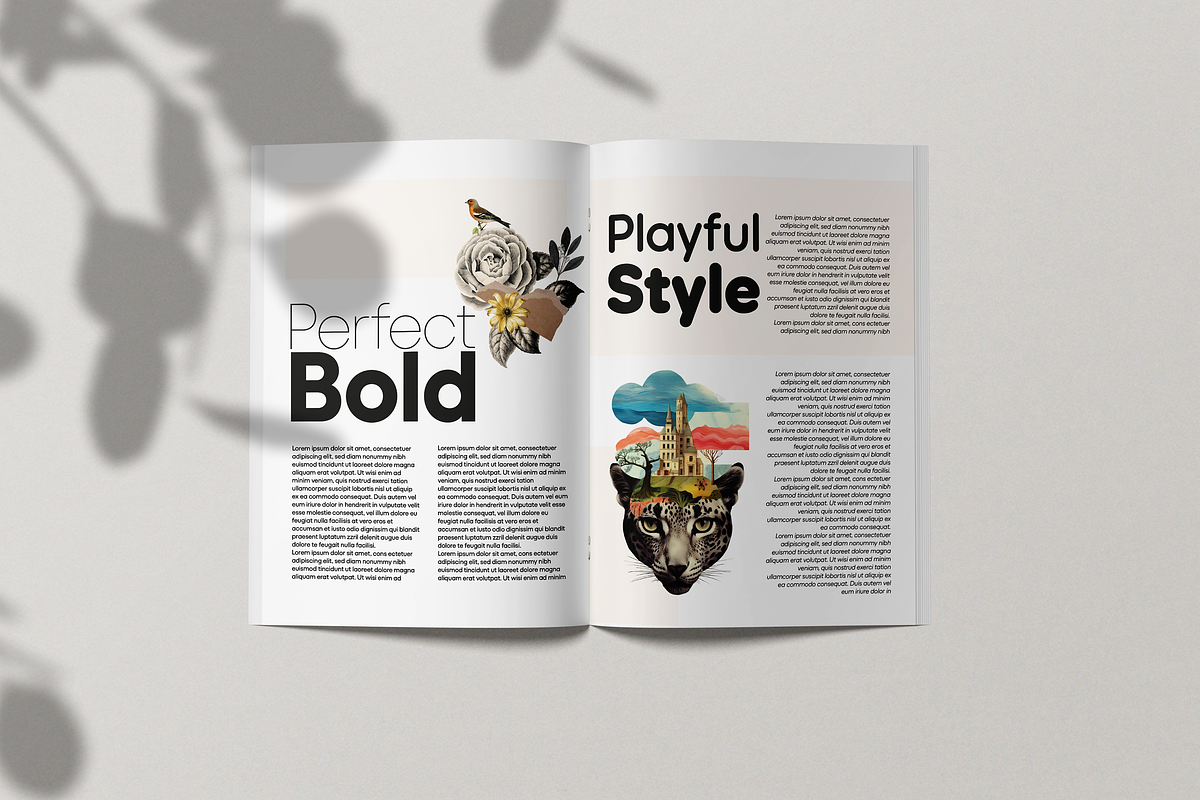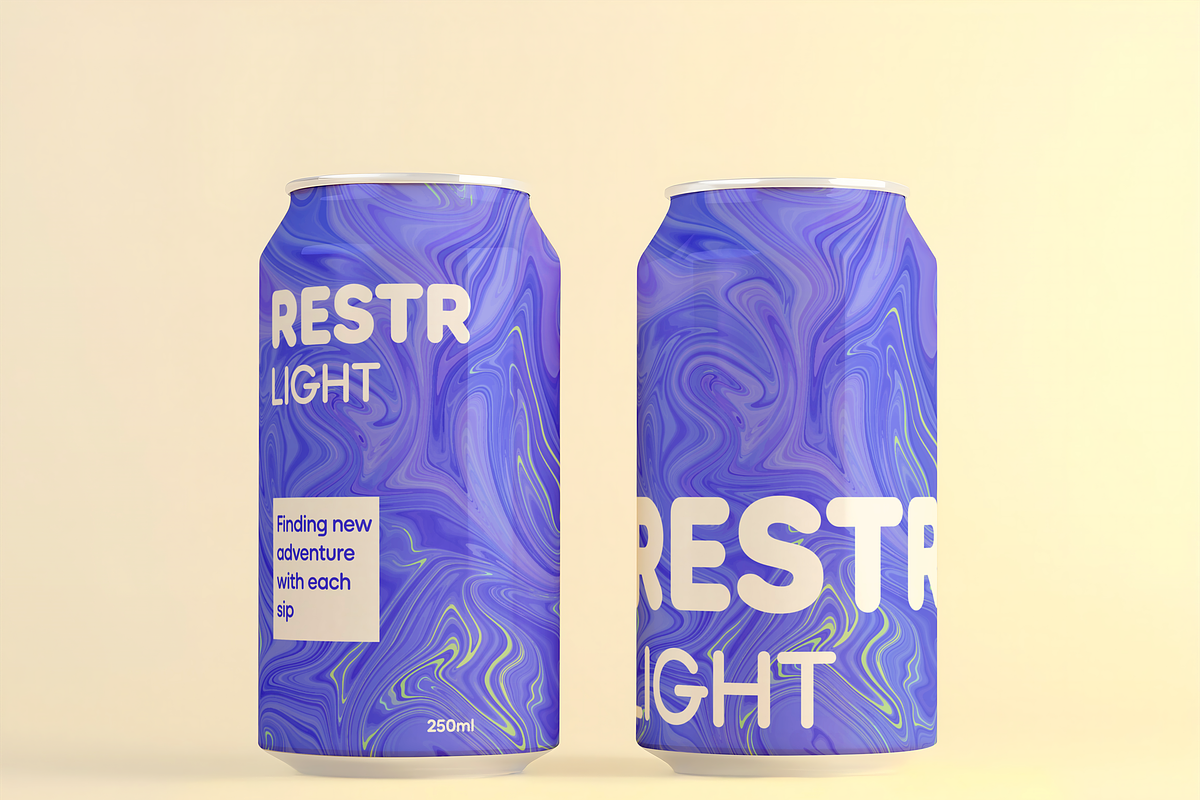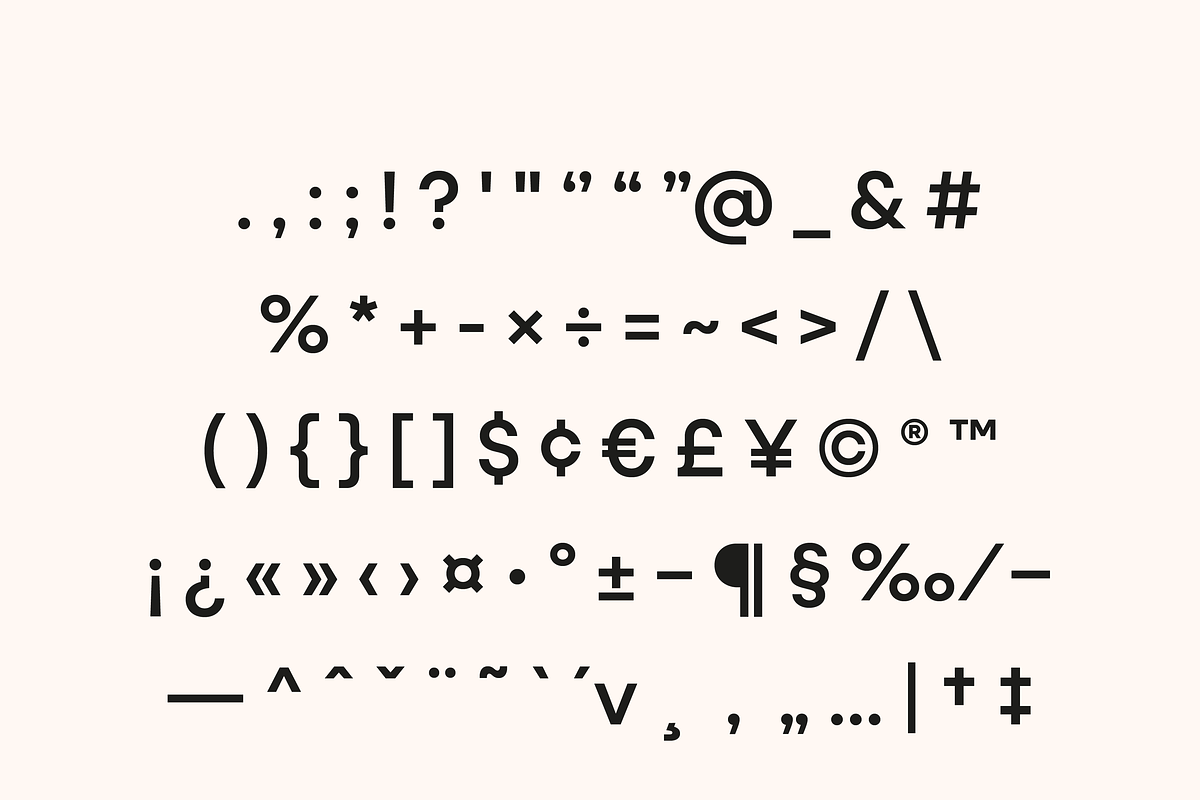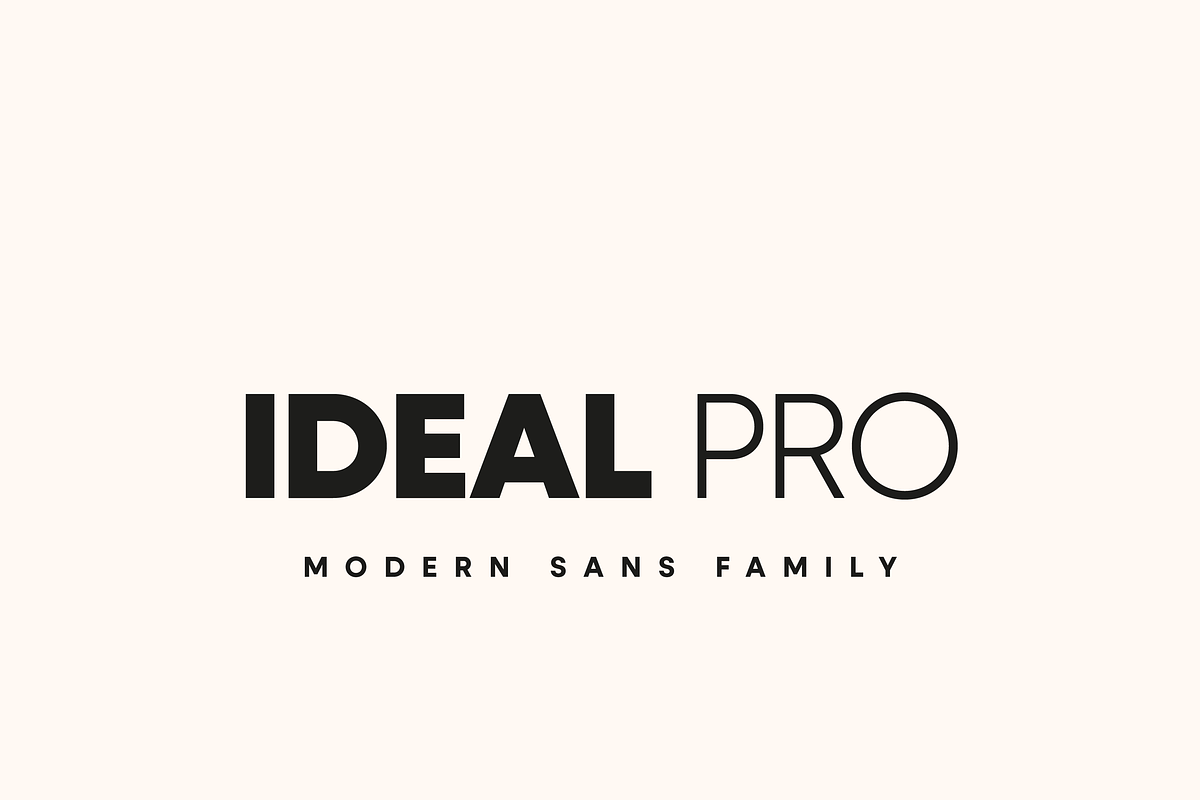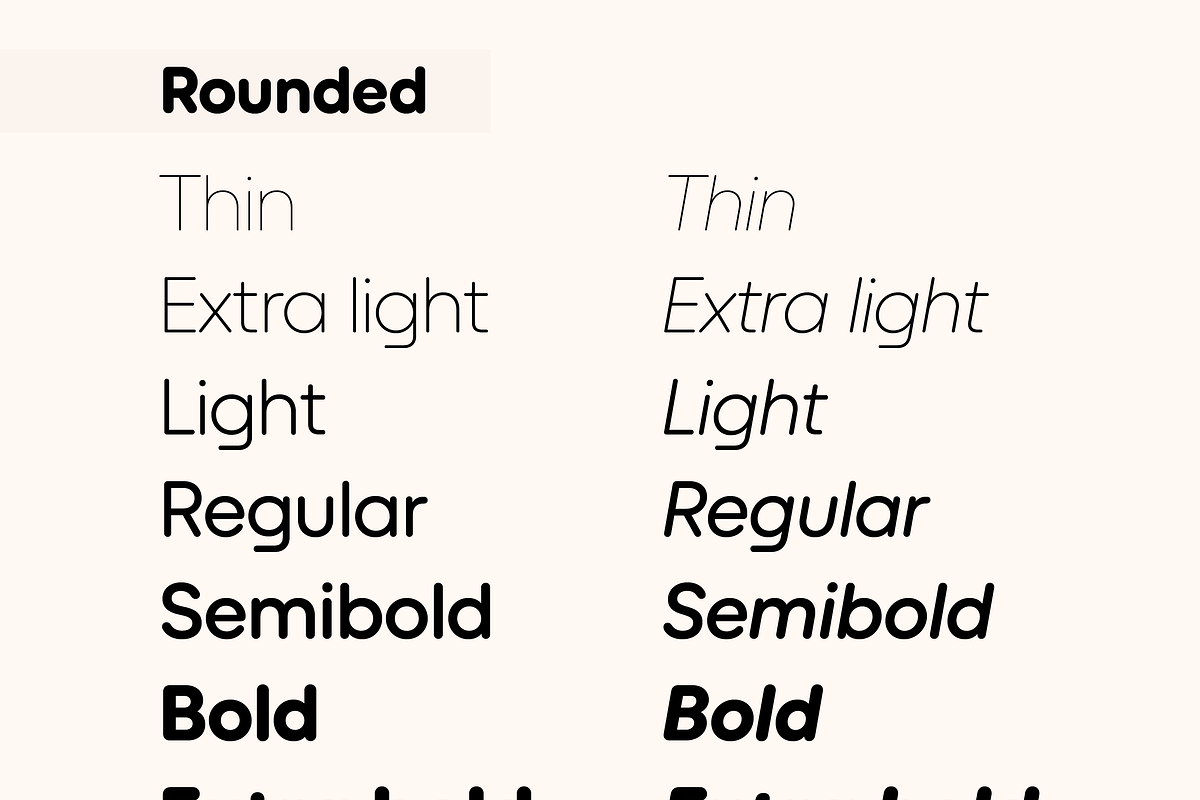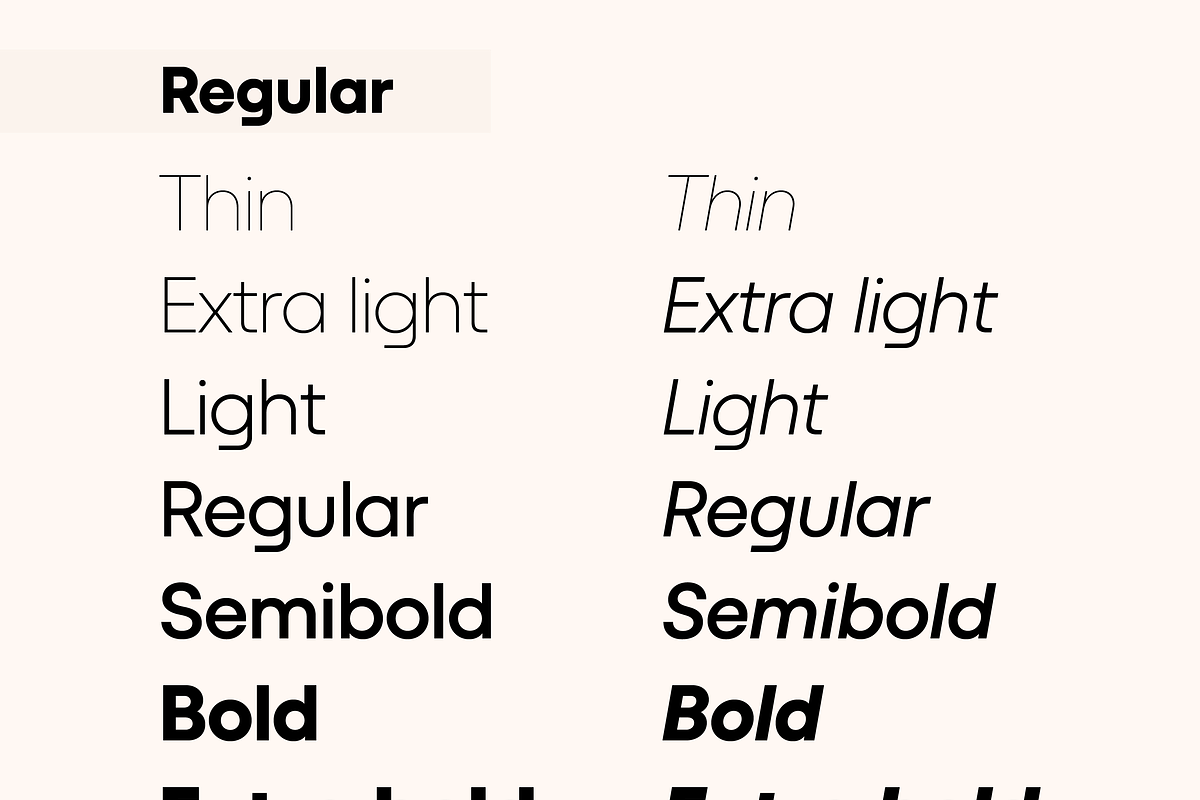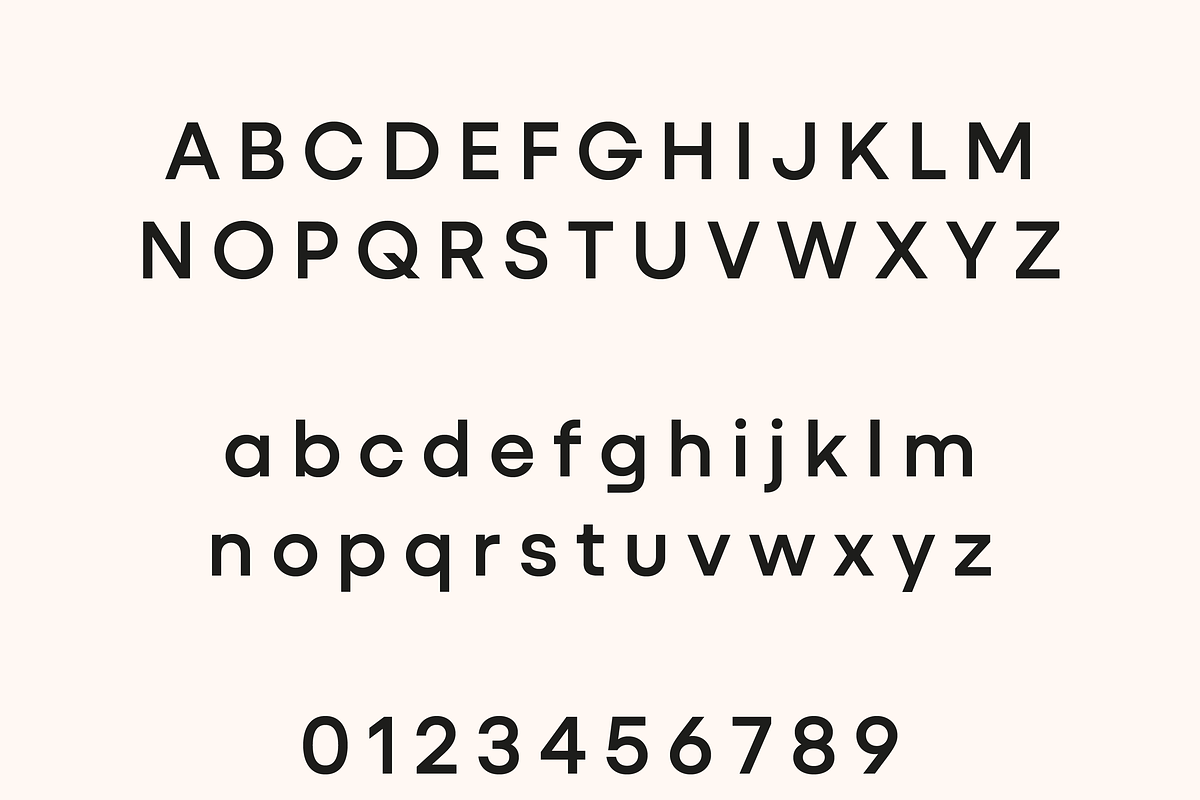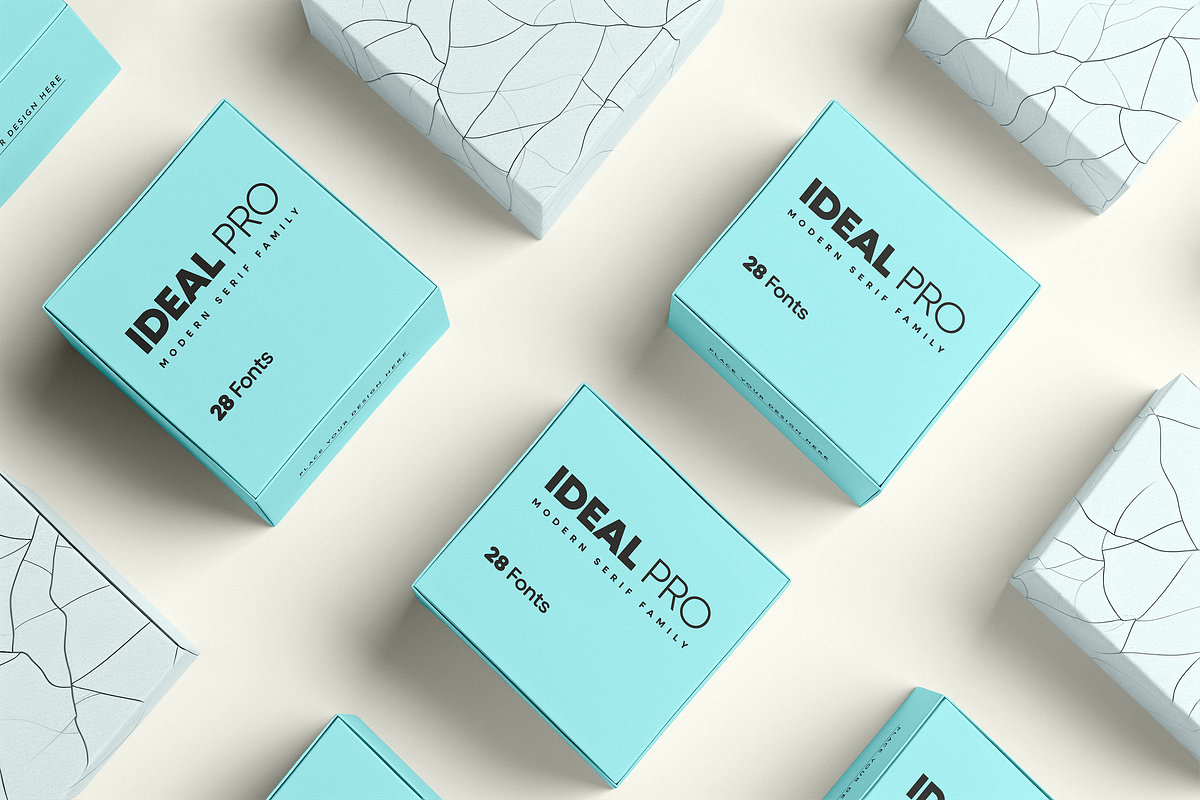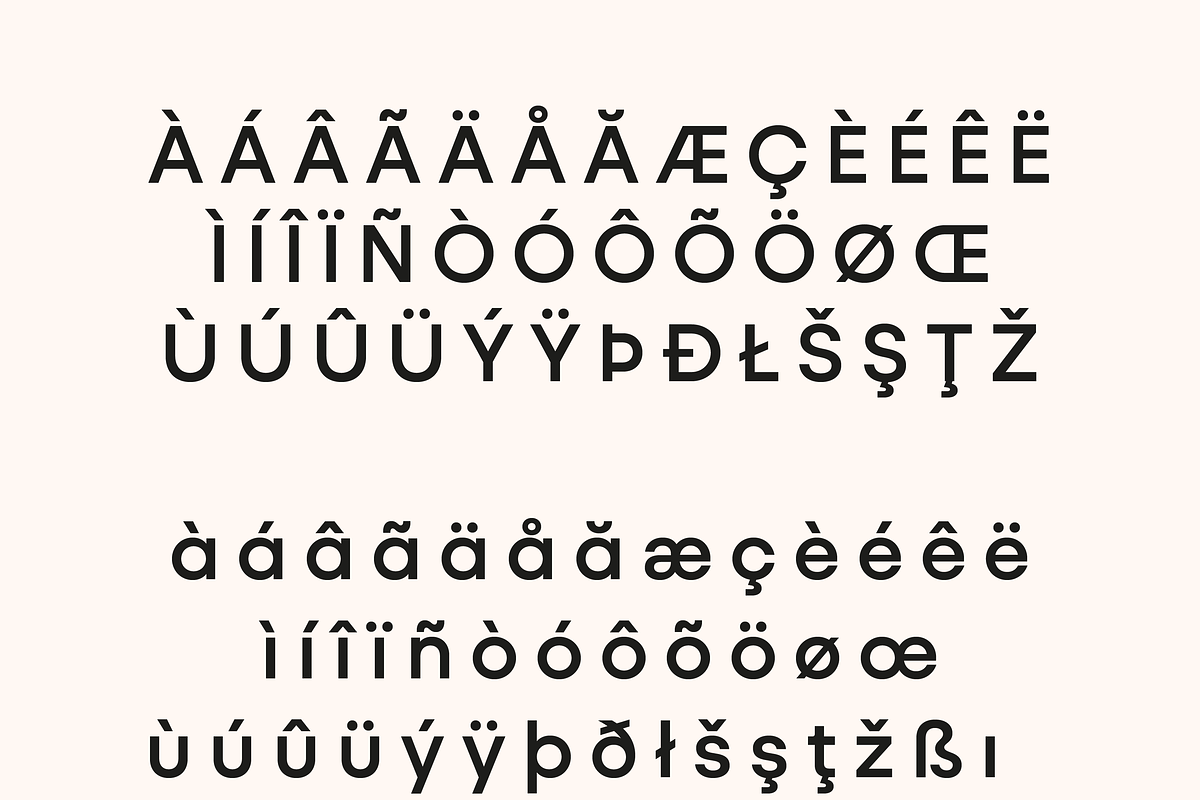
Ideal Pro Sans Family
Ideal Pro – A Clean, Versatile Sans Family
Ideal Pro is a humanist sans-serif superfamily designed for clarity and flexibility across any medium. Its generous x-height, open counters, and subtly curved terminals lend warmth and approachability without sacrificing professionalism.
With its balanced proportions and smart feature set, Ideal Pro adapts to virtually any design challenge—offering both neutrality and warmth wherever a sans-serif is called for.